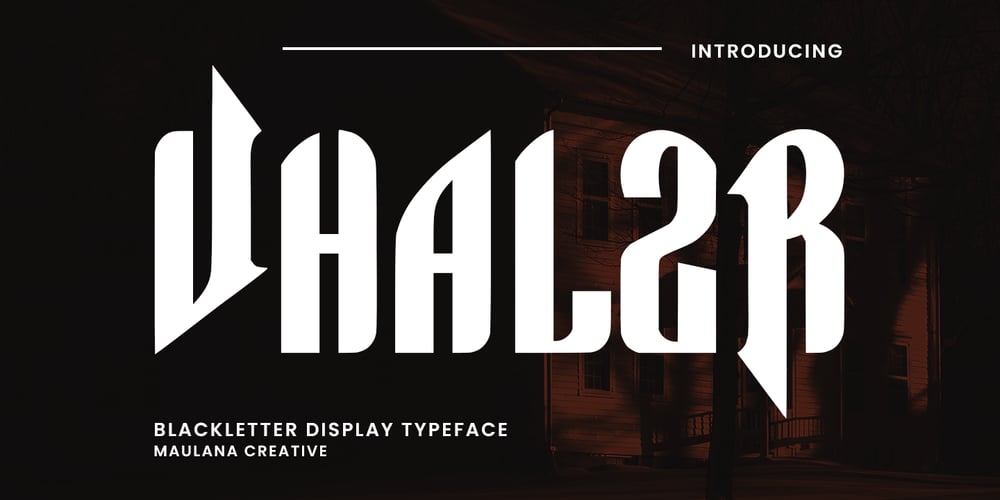
MC Vhalzr Font Family was designed by Gilang Maulana and published by Maulana Creative. MC Vhalzr contains 1 styles and family package options. Vhalzr Stylish Vintage Typeface is a modern display serif font. With bold contrast stroke, fun character with a bit of ligatures. To give you an extra creative work. Vhalzr font support multilingual more than 100+ language. This font is good for logo design, Social media, Movie Titles, Books Titles, a short text even a long text letter and good for your secondary text font with sans or serif. Make a stunning work with Vhalzr font.Cheers,Maulana Creative